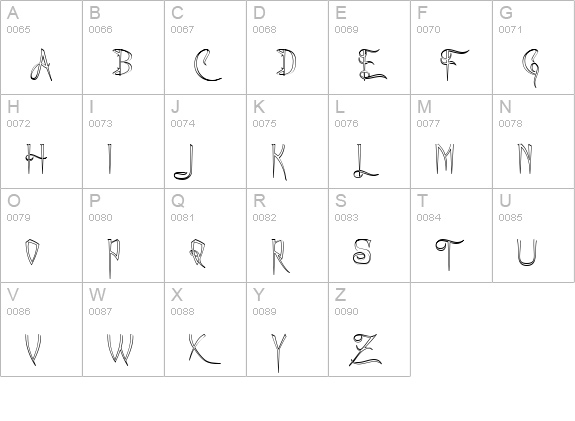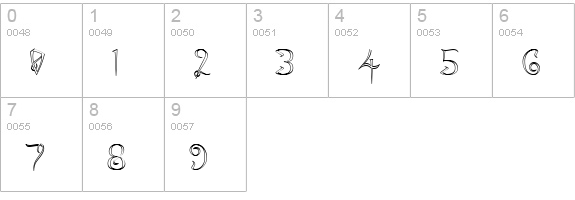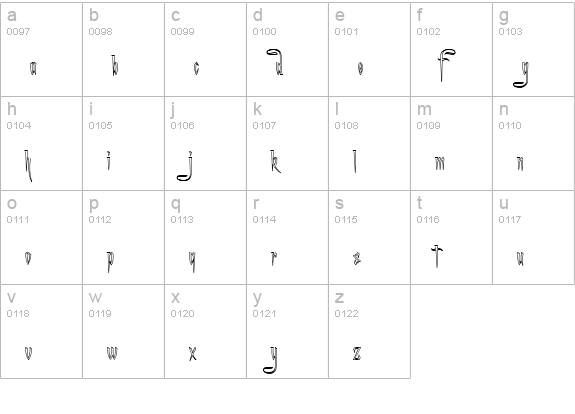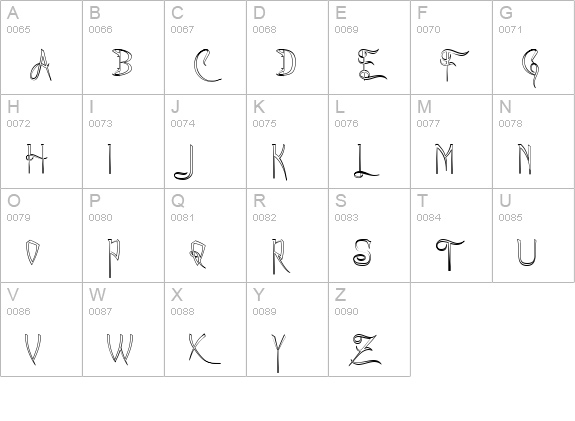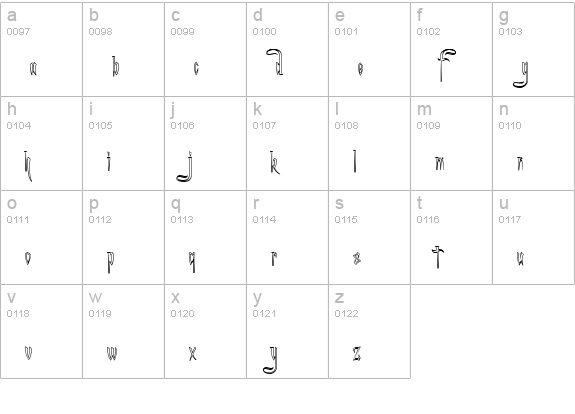
A Charming Font Outline Font Details
A Charming Font Outline is an exquisite font that exudes elegance and sophistication. With its delicate lines and graceful curves, this font adds a touch of charm to any design project. Whether you're creating invitations, logos, or website headers, A Charming Font Outline is the perfect choice to make a lasting impression. This font is not only visually appealing but also versatile, making it suitable for a wide range of applications. Its clean and clear outline makes it easy to read and ensures legibility even at smaller sizes. Whether you're using it for print or digital media, A Charming Font Outline will always deliver a polished and professional look. One of the best things about A Charming Font Outline is that it is free to download. You can easily get your hands on this stunning font at FontsMarket.com, a trusted source for high-quality fonts. Simply visit the website, search for A Charming Font Outline, and start downloading it right away. Whether you're a professional designer or just someone who appreciates beautiful typography, A Charming Font Outline is a must-have in your font collection. Its timeless appeal and versatile nature make it a font that you can rely on for all your creative endeavors. Download A Charming Font Outline today and let its charm captivate your audience.